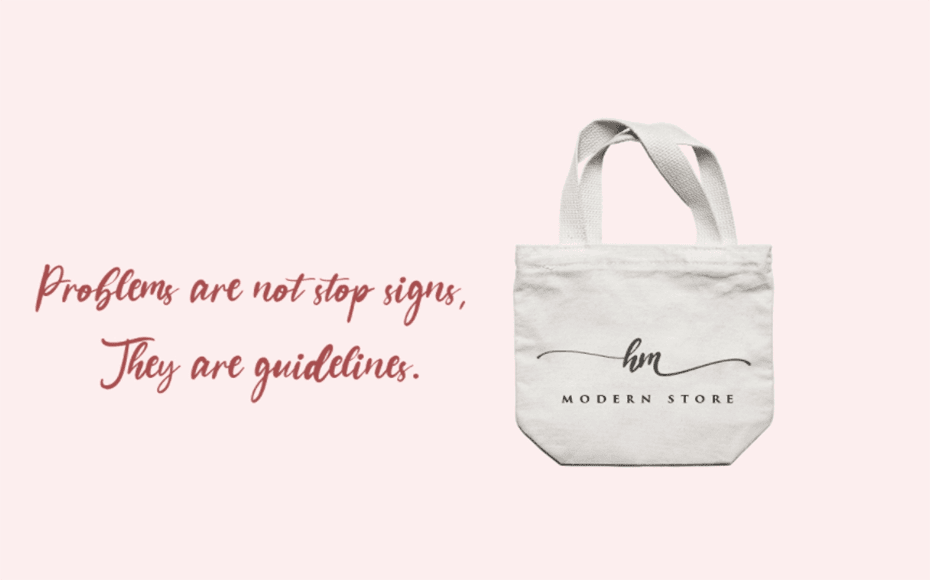
Here we have the Bohemian modern calligraphy font, a stunning choice for any romantic or creative project such as wedding invites or feminine, fashion-focused branding designs.
It was created by Vultype that is a famous design company. Provides high-quality retail fonts for improving your creativity and productivity.
All the characters have been made by the designer with a stylish brush just to make them cool and stunning. Moreover, he adds amazing swashes that increase its beauty.
You can add it manually to places where you need a super cool touch. So, one thing is for sure, when you apply this brush font you will definitely get a great design.
Style:Script, handwritten, Typeface
You can see in the picture how it will look in your own design.
This elegant font is perfectly suited for romantic or creative project such as wedding invites or feminine, fashion-focused branding designs, special event cards, book covers, cosmetics, cards, shopping bags, and many more.
Bohemian Font has come in a single style that possesses Opentype features. This style also has extra stylish glyphs and interesting characters that are uppercase, lowercase, numbers, icons, symbols, & punctuations.